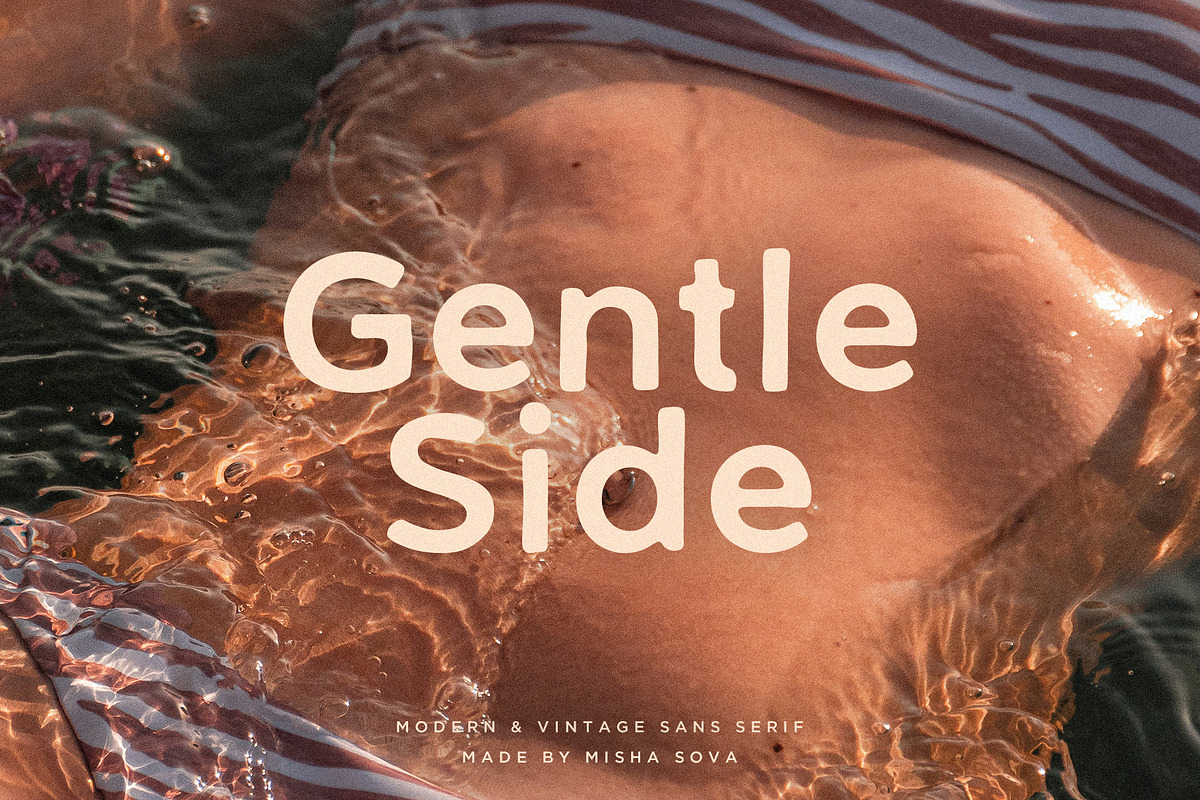
Step into the heart of timeless design with Gentle Side—a bold yet graceful sans serif typeface crafted by Misha Sova that redefines the fusion of modern minimalism and nostalgic elegance. This isn’t just a font; it’s a statement. With its softly rounded shapes, distinctive letterforms, and carefully balanced proportions, Gentle Side effortlessly bridges the gap between past and present, offering a design voice that feels both fresh and familiar.
Distinctive Design That Commands Attention
From its first glance, Gentle Side stands out. Unlike standard sans serifs that blend into the background, this typeface grabs attention through its unique character—each letter shaped with intention, charm, and a hint of handcrafted authenticity. The gentle curves, subtle asymmetry, and refined terminals create a visual rhythm that feels natural, inviting, and deeply expressive. Whether used in headlines or body text, it brings a sense of quiet confidence and understated sophistication.
Perfect for Timeless Branding and Creative Projects
Gentle Side is engineered for versatility. Its balanced contrast and clean structure make it a powerful tool across a wide range of applications:
- Logo Design: Create memorable brand identities with a modern vintage edge—perfect for fashion labels, lifestyle brands, coffee shops, and creative studios.
- Invitations & Stationery: Elevate weddings, events, and personal greetings with a font that adds warmth and elegance without overpowering the message.
- Print & Digital Media: Seamless across web, mobile, and print—ideal for websites, brochures, packaging, and social media graphics.
- Copy Typography: Use its readability and charm in long-form text for blogs, magazines, or narrative-driven content.
No matter the medium, Gentle Side adds a layer of emotional resonance that standard fonts simply can’t match.
Rich Typographic Features for Professional Use
Designed with serious creative demands in mind, Gentle Side offers more than just aesthetic appeal. It’s built with functional depth:
- Comprehensive Character Set: Includes uppercase, lowercase, numerals, punctuation, and a wide range of symbols for full design flexibility.
- Multilingual Support: Fully supports Latin-based languages including Western European, Central European, and extended character sets—ideal for global projects.
- Basic Ligatures: Delivers smoother, more natural text flow with pre-designed character combinations for enhanced readability and typographic harmony.
- Over 250 Glyphs: Beyond the alphabet, it includes stylistic alternates, swash options, and decorative variants to expand creative possibilities.
This level of detail ensures your designs are not only beautiful but also production-ready and professionally polished.
Why Designers Love Gentle Side
There’s a quiet magic in fonts that don’t scream—but still demand attention. Gentle Side delivers exactly that. It doesn’t rely on flash or gimmicks. Instead, it earns its place through subtlety, consistency, and emotional depth. Designers choose it not just for its appearance, but for its ability to elevate the entire creative narrative.
It’s ideal for brands that value authenticity, craftsmanship, and a human touch. It speaks to people who appreciate design that feels intentional—not just functional, but meaningful.
Unlock the power of Gentle Side and transform your next project from ordinary to unforgettable. With its blend of modern precision and vintage soul, this font is more than a tool—it’s a creative partner.